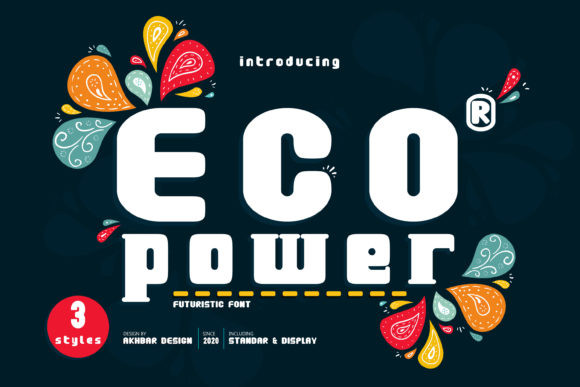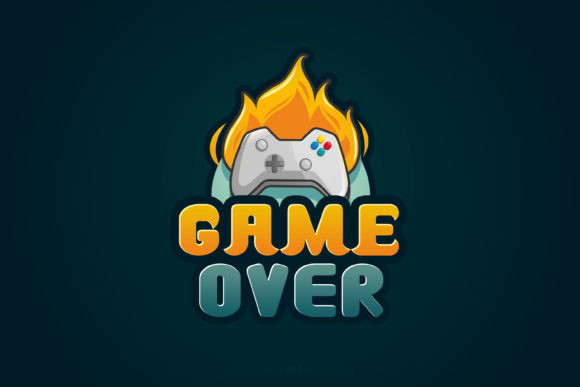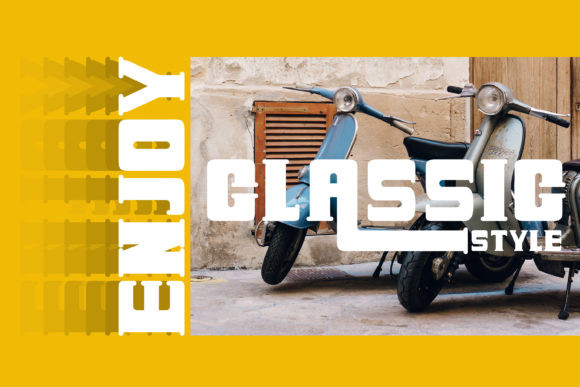
Eco Power Font
Eco Power is a truly outstanding display font. The great diversity of weights provides a variety of choices that will help you find the best typographic solution for a wide range of projects.